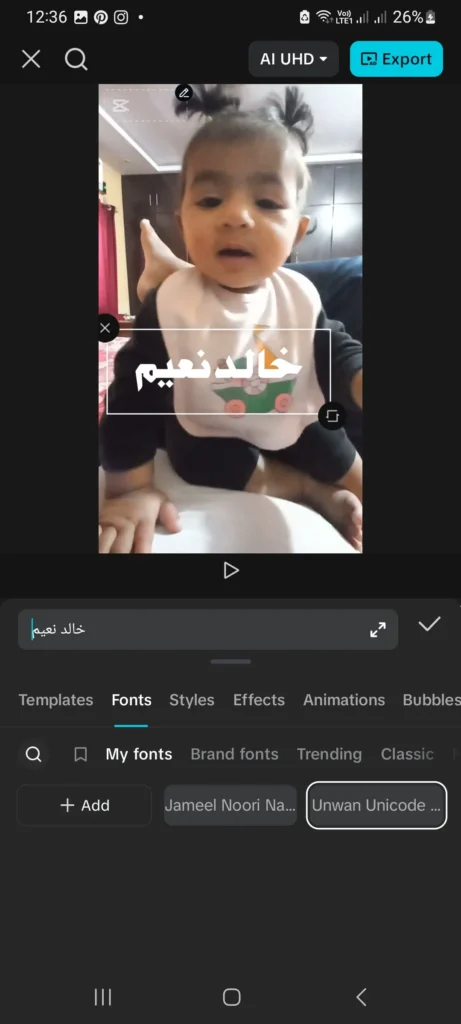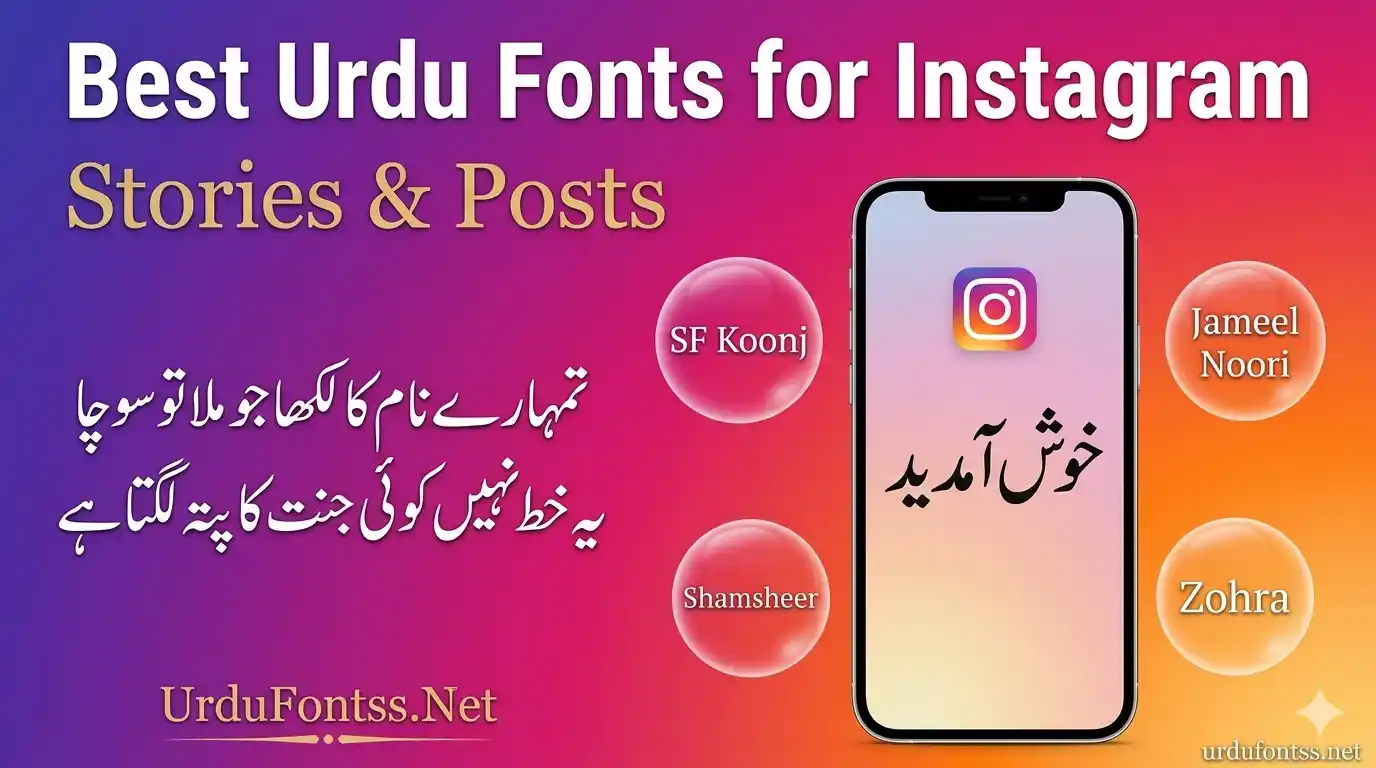
Best Urdu Fonts for Instagram Stories & Posts – Enhance Your Social Media Design
Introduction – Why Font Choice Matters for Instagram
Instagram is a visual-first platform. Every element in your story or post, from the background image to the text overlay, contributes to how your audience perceives your content. When creating Urdu content, the font you choose can make the difference between a story that stops someone mid-scroll and one that gets skipped entirely.
The challenge with Urdu typography on social media is real. Not all fonts render correctly. Some break into disconnected characters, while others display as empty boxes — a frustrating experience for any creator. This happens because Instagram and many design apps rely on Unicode-compatible fonts to display Urdu correctly. If your font lacks proper Unicode support, your beautifully crafted message turns into an unreadable mess. For a deeper understanding of this issue, you can read our guide on Proper Unicode Support Urdu Font Issues.
In this guide, I will walk you through the best Urdu fonts for Instagram stories and posts. You will find a curated list of fonts that work reliably, detailed reviews of each one, installation instructions for popular design tools, and practical tips to make your Urdu text stand out. Whether you are a social media manager, a content creator, or someone who simply enjoys sharing Urdu poetry online, this article will help you make informed font choices.
Top 10 Best Urdu Fonts for Instagram Stories & Posts
Here is a quick comparison of the fonts covered in this guide. Each one has been tested for Instagram compatibility, readability on mobile screens, and Unicode support.
#Font NameStyleBest ForUnicode
1Jameel Noori NastaleeqTraditional NastaleeqPoetry, Quotes✅
2Noto Nastaliq UrduModern NastaleeqClean Stories✅
3UL Amjad Outline RegularDecorative OutlineEvent Posts✅
4UL Sajid Heading RegularBold HeadingAnnouncements✅
5Tehreer RegularClean MinimalLifestyle Stories✅
6Al Qalam Quran MajeedQuranic ArabicIslamic Posts✅
7UL Noreen Bold RegularBold ReadableHighlight Text✅
8UL Bilal Outline RegularStylish OutlineCreative Posts✅
9Urdu Naskh UnicodeSimple NaskhProfessional Content✅
10Muhammadi Quranic FontArabic StyleIslamic Content✅
Detailed Font Reviews & Best Use Cases
Each font on this list has been selected based on readability, Instagram compatibility, and design versatility. Here is a closer look at what makes each one valuable for your social media content.
1. Jameel Noori Nastaleeq – The Classic Choice for Urdu Poetry
If you have ever seen an Urdu poetry post on Instagram that looked effortlessly elegant, there is a strong chance it was typed in Jameel Noori Nastaleeq. This font is the gold standard for traditional Urdu typography. It follows the Nastaleeq writing style, which is the cursive, flowing script that Urdu readers find most natural and familiar.
For Instagram stories featuring shayari, quotes, or literary content, Jameel Noori Nastaleeq is unmatched. The diagonal flow of the text creates a rhythm that complements poetic expression. It renders well on mobile screens and maintains readability even at smaller sizes. I have used this font extensively for quote posts, and it consistently receives positive feedback from followers who appreciate the authentic Urdu feel.
2. Noto Nastaliq Urdu – Google’s Gift to Urdu Designers
Noto Nastaliq Urdu is part of Google’s Noto font family, which aims to support all the world’s languages. Being open-source and developed by Google, it comes with excellent Unicode compliance and rendering quality. The font has a clean, modern take on the Nastaleeq style without losing its traditional essence.
What makes Noto Nastaliq particularly suitable for Instagram is its consistency across platforms. Since it is available on Google Fonts, you can use it directly in web-based design tools without worrying about file compatibility. The letterforms are well-spaced, making the text easy to read on mobile screens. If you want a reliable, no-fuss Urdu font that works everywhere, this should be near the top of your list.
3. UL Amjad Outline Regular – Decorative & Eye-Catching
Sometimes your Instagram story needs text that does more than just convey a message — it needs to be part of the visual design. UL Amjad Outline Regular is built for exactly these situations. Its outline style creates a hollow, bordered effect that naturally draws the eye without overwhelming the background image.